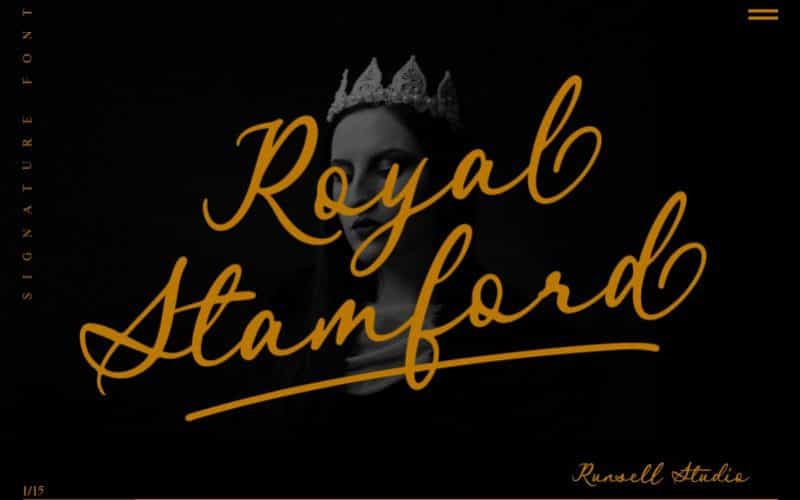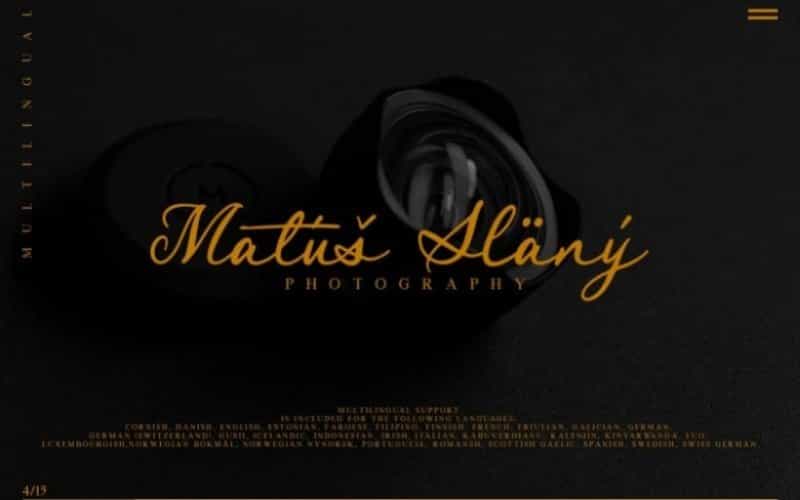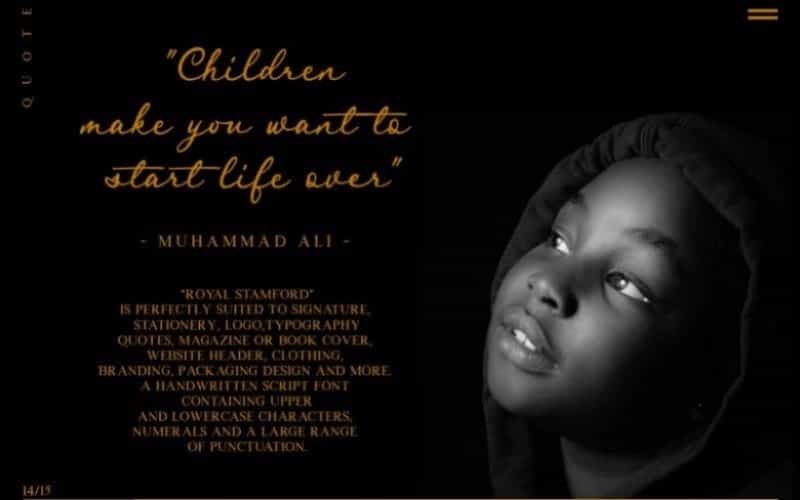
Royal Stamford is a classy handwriting font with a distinct curve, inside with some nice goodies that would be ideal for an authentic-style project. Royal Stamford is ideal for signature, stationery, logo, typography quotes, magazine or book cover, website header, clothing, branding, packaging design, and many more.